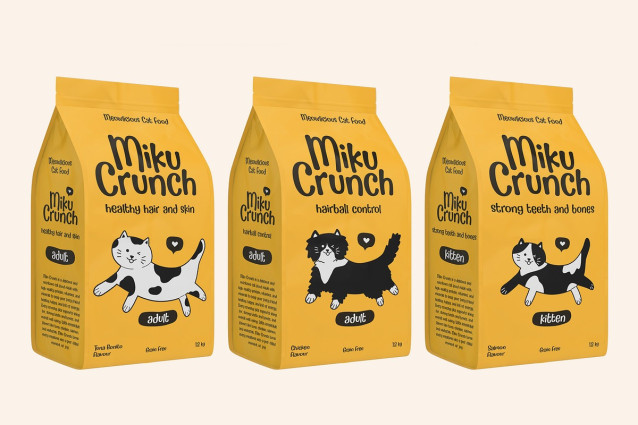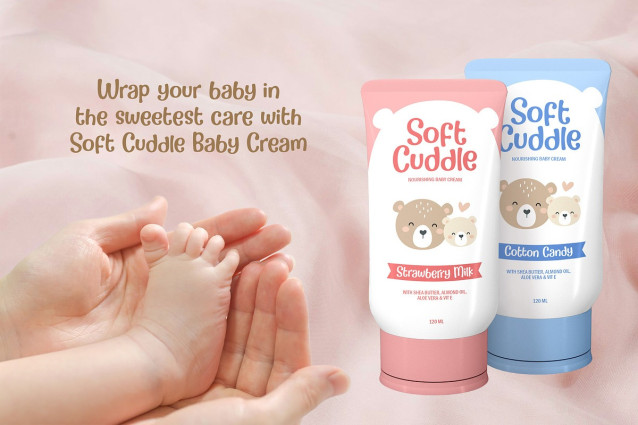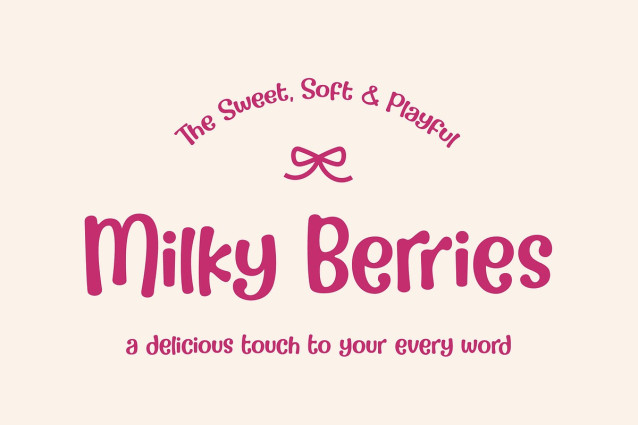
Milky Berries Font
Milky Berries Font! This playful handwritten font is bursting with charm — rounded, bouncy letters that feel as fresh as your favorite dessert. Whether you’re crafting a cozy cafe menu, a cheerful greeting card, or a bold social media post, Milky Berries brings a joyful personality that’s impossible to resist.